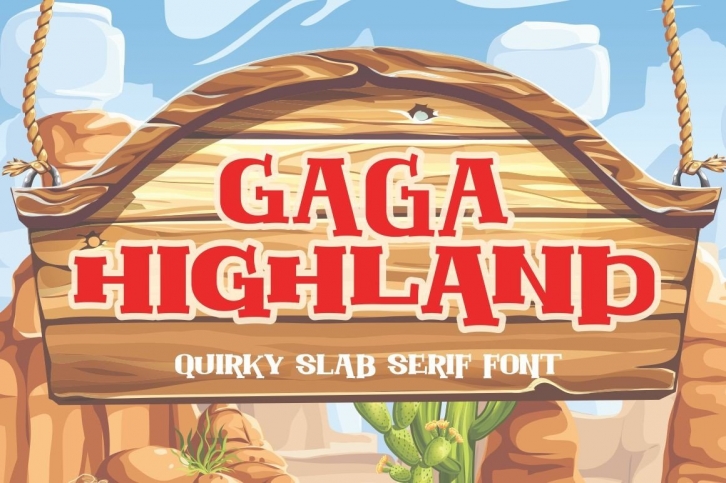
Gaga Highland is a fun and quirky display font masterfully designed to become a true favorite. Fall in love with it and bring your projects to the highest levels!